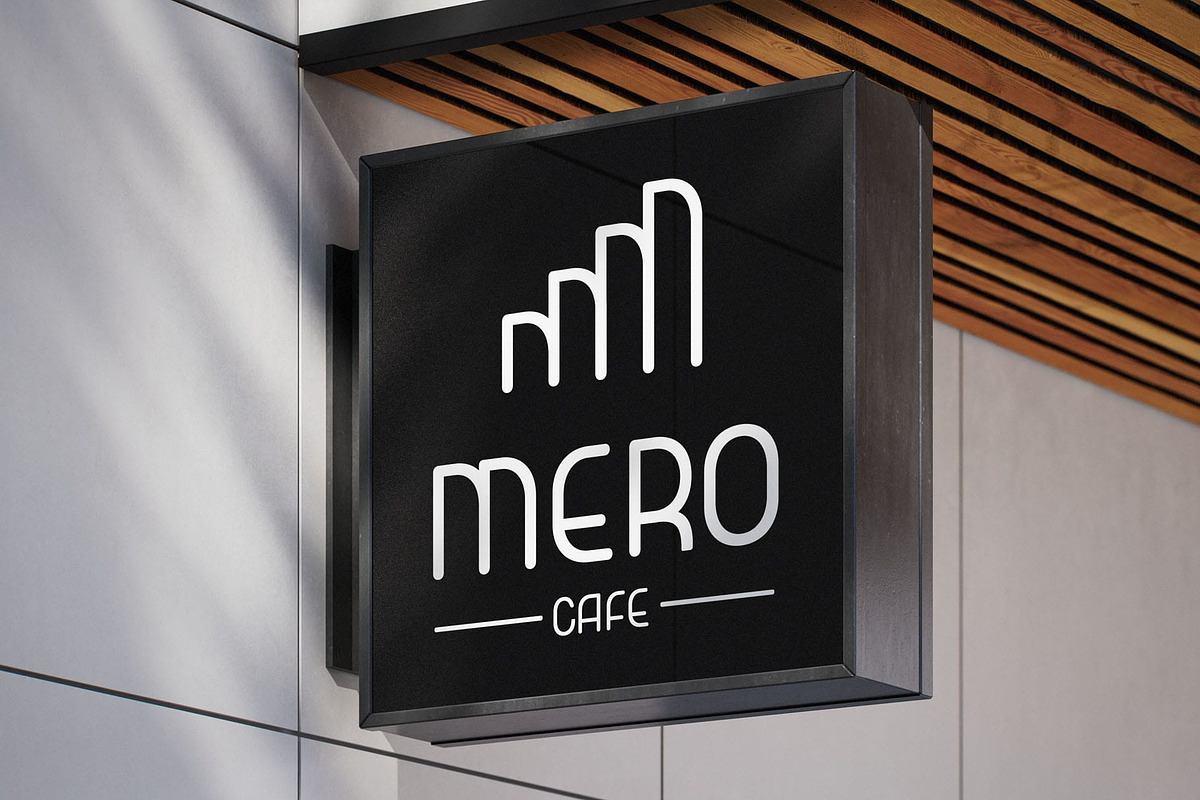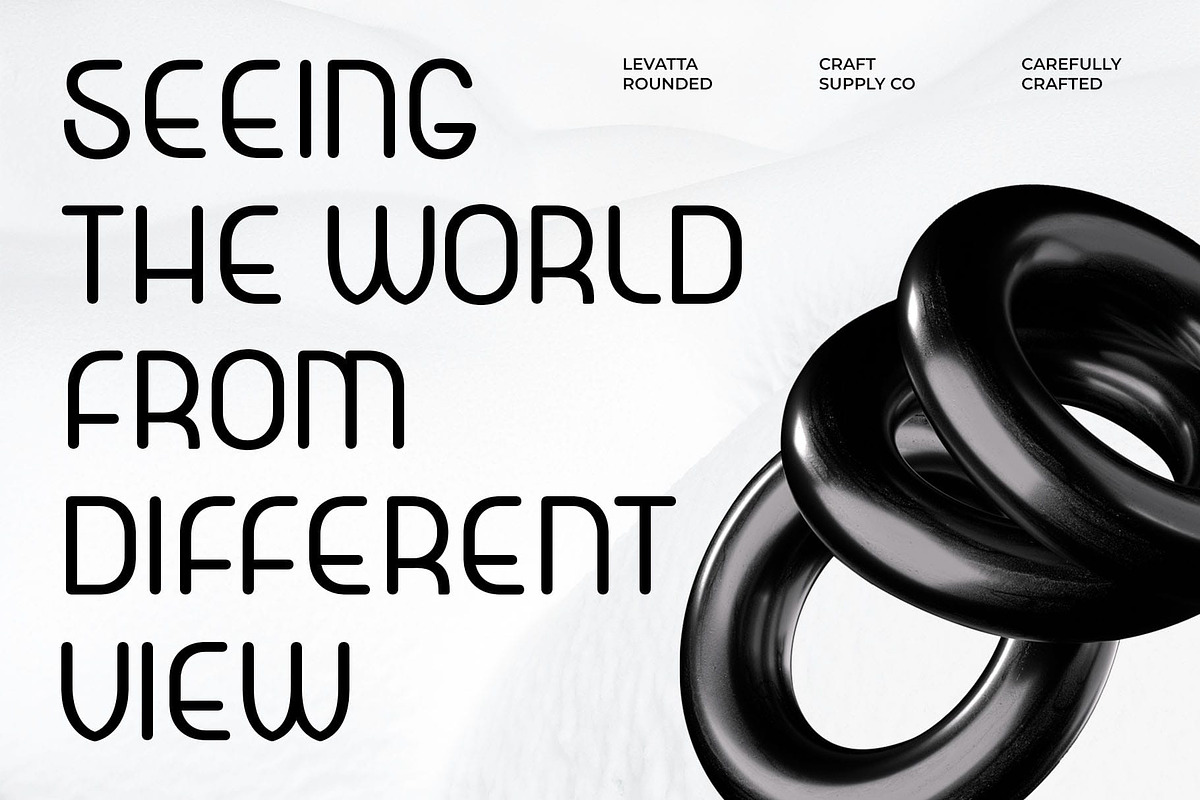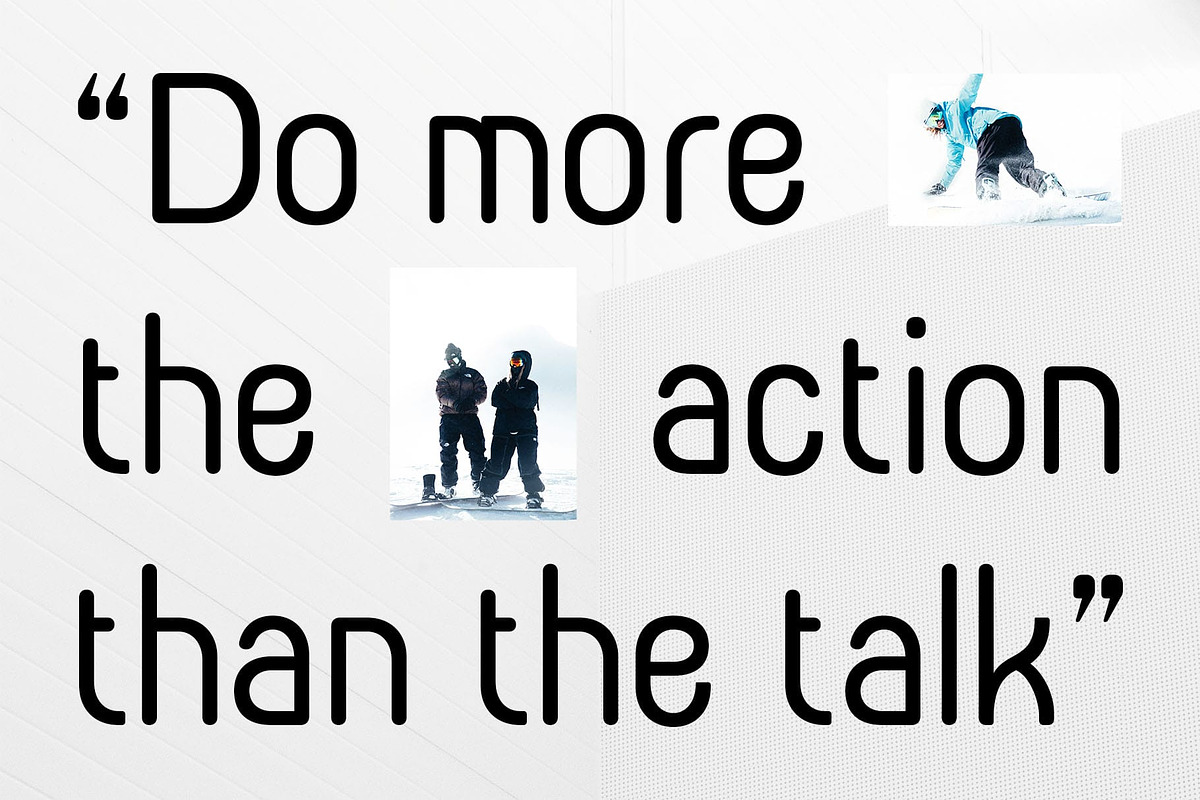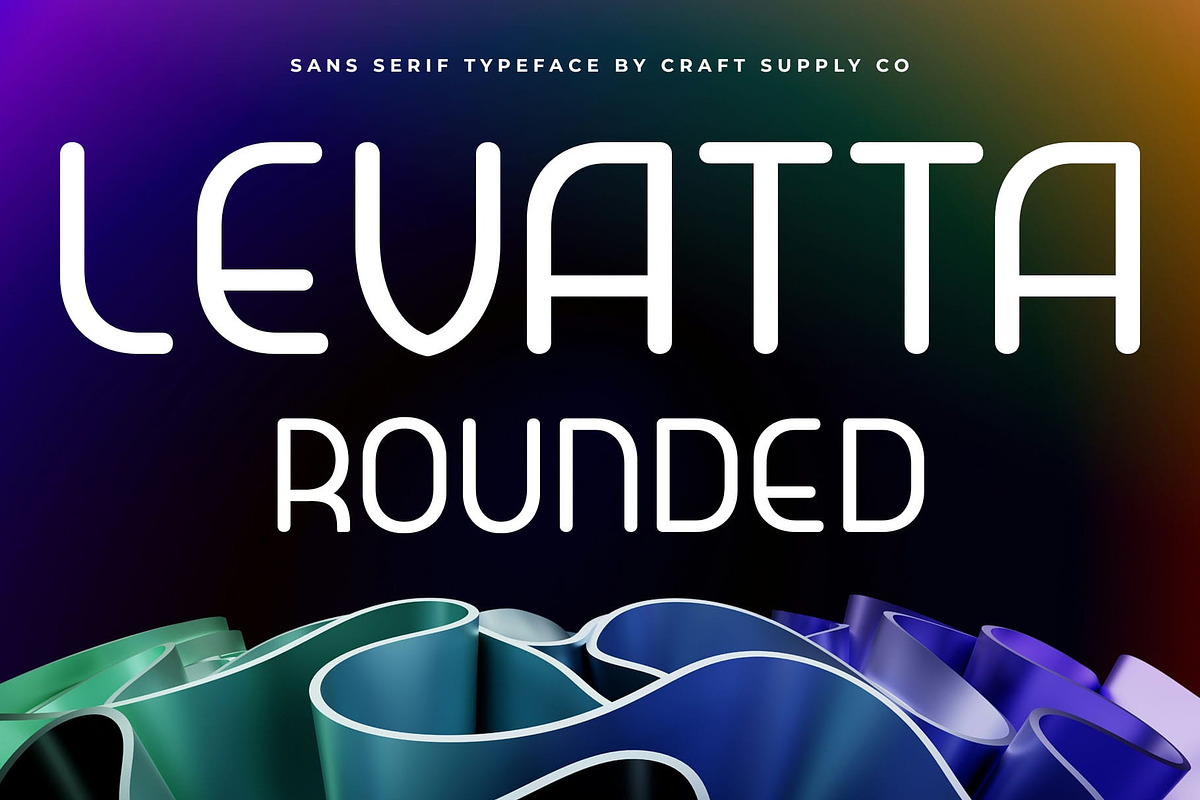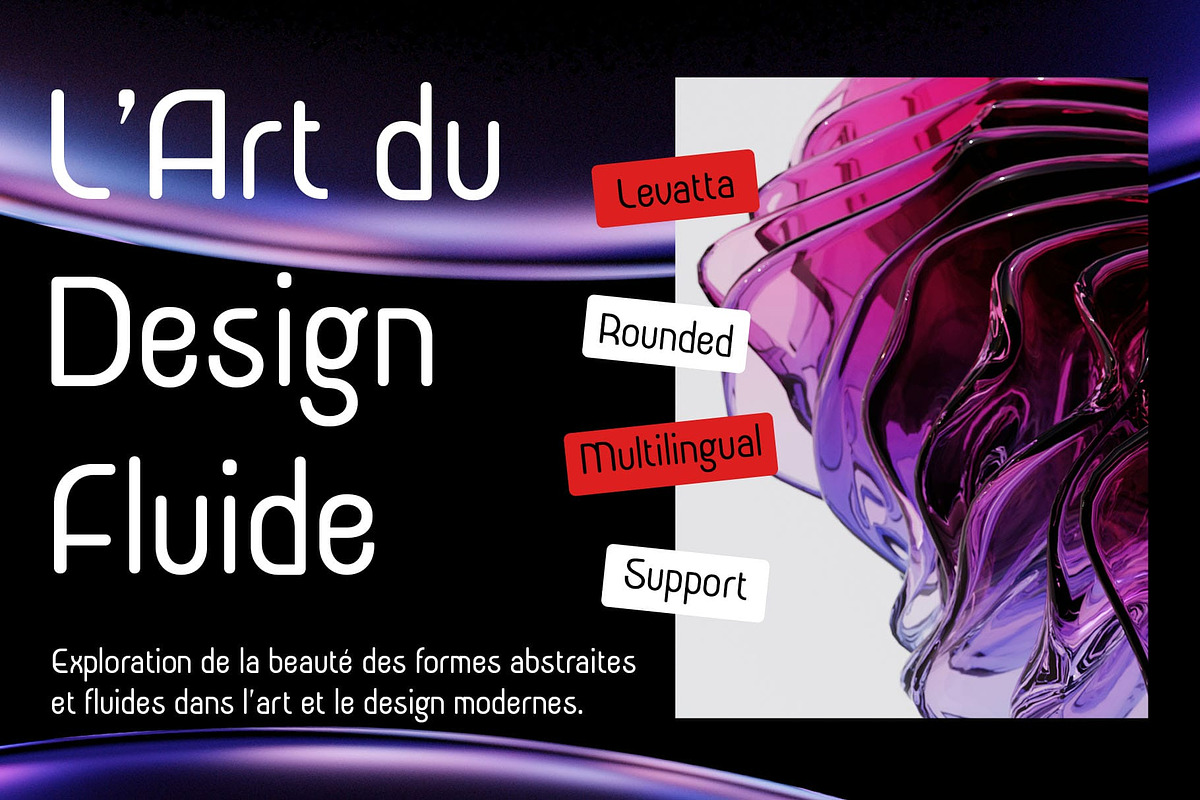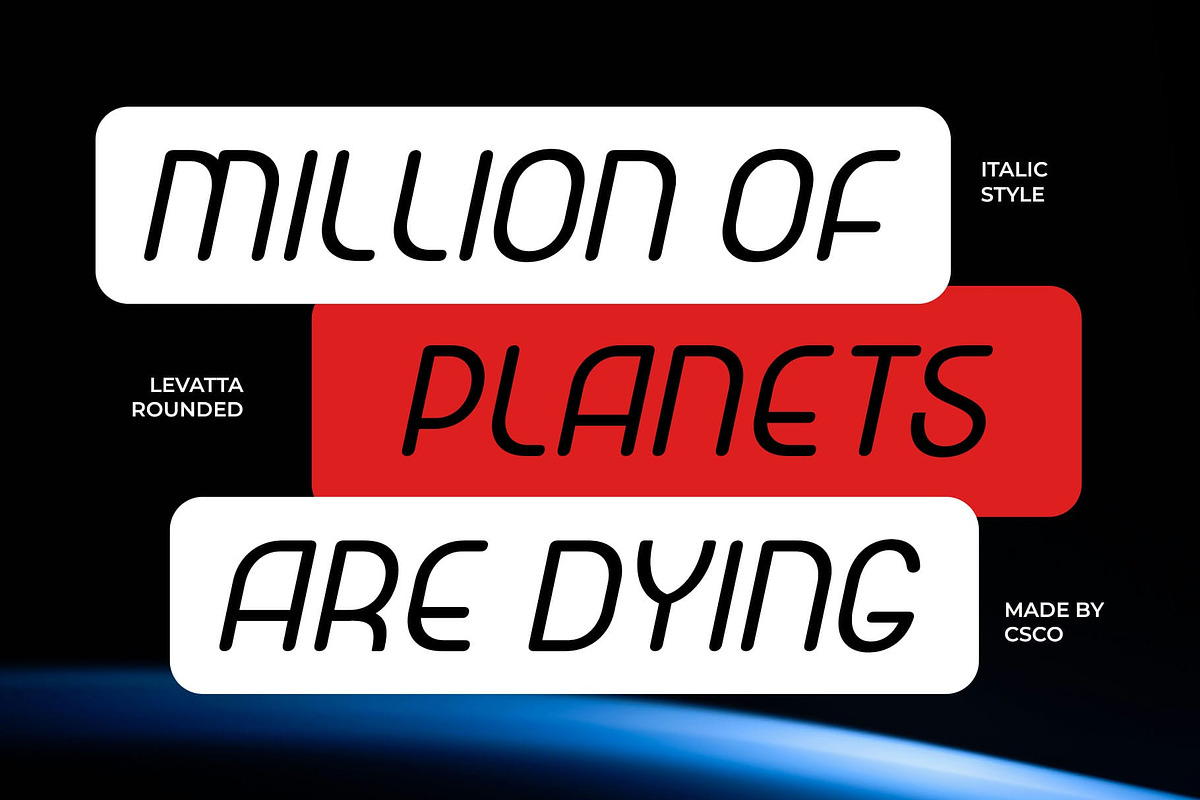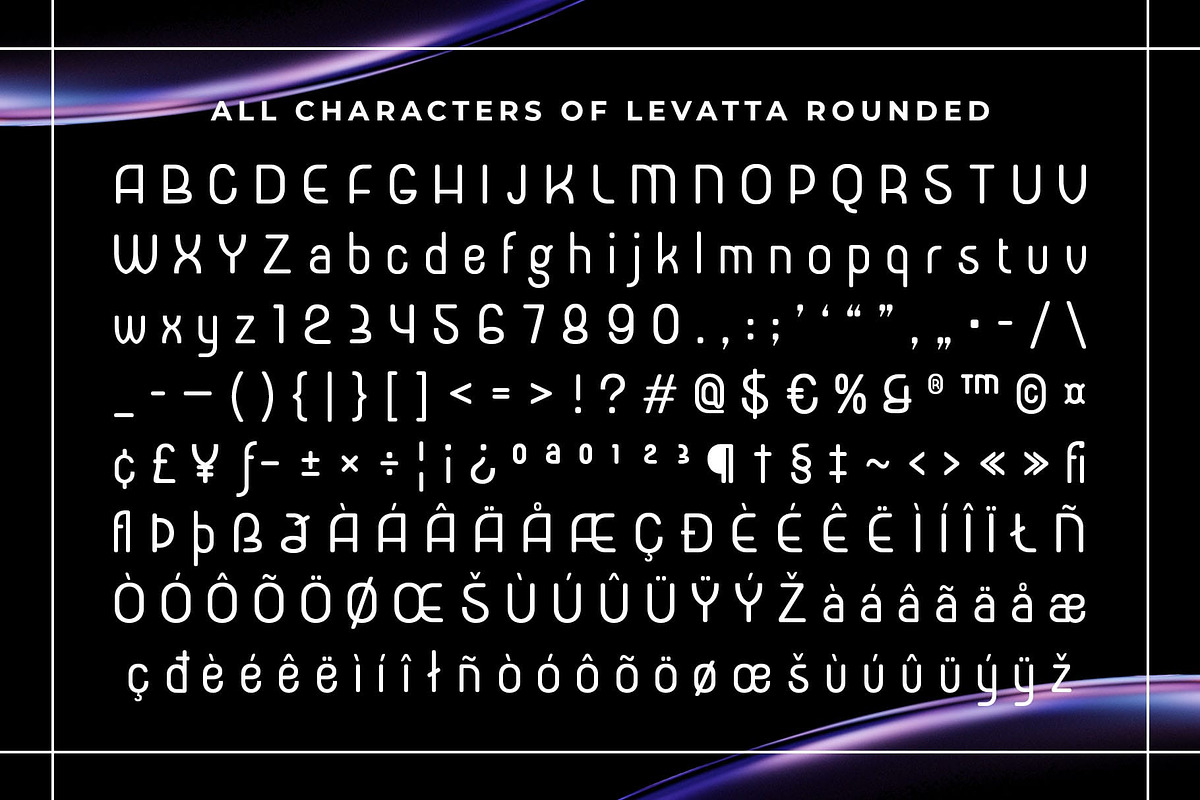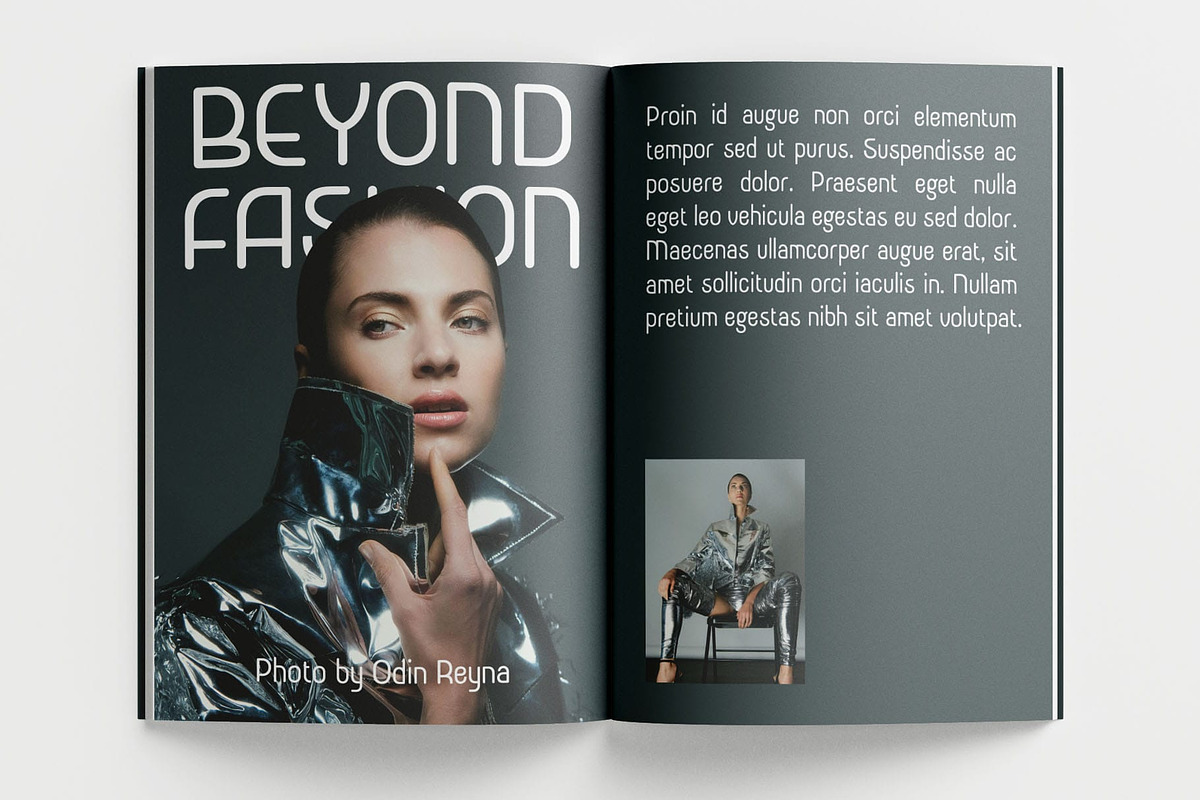
Levatta Rounded
Levatta Rounded Font – Soft Precision in Modern Form
Modern Sans-Serif Font with Rounded Geometric Style Levatta Rounded is a modern sans-serif font that combines precise geometric forms with subtly softened, rounded edges. It delivers a clean, contemporary look that feels both professional and approachable—making it an excellent choice for today’s forward-thinking design needs.
Geometric Structure with Rounded Warmth Crafted with minimalist geometric principles, Levatta Rounded maintains clarity and consistency across its forms. The gentle rounding of terminals introduces warmth, balancing structure with softness and enhancing its visual friendliness.
Minimalist Style for Modern Branding With its sleek and understated design, this font is ideal for clean, modern branding. Whether used in logos, headlines, or product design, it lends a polished and versatile presence that communicates reliability and simplicity.
Optimized for UI/UX and Digital Interfaces Thanks to its high legibility and balanced proportions, Levatta Rounded performs beautifully in digital environments. It’s perfectly suited for apps, websites, and user interfaces that demand clarity without losing personality.
Friendly Yet Professional Expression Levatta Rounded’s aesthetic strikes the perfect balance between approachable and refined, making it a reliable typeface for businesses, tech, startups, and creative studios looking to project a modern and trustworthy image.